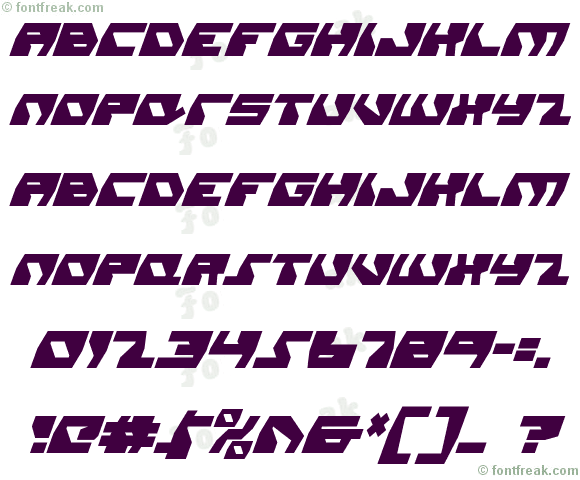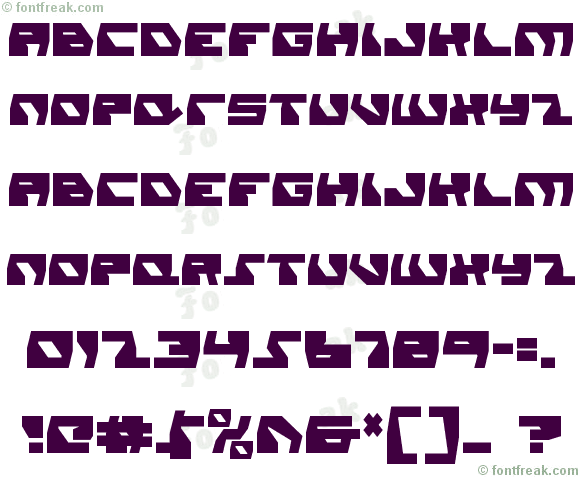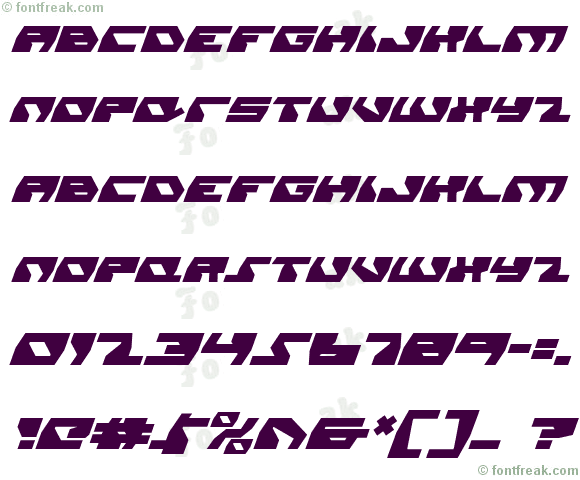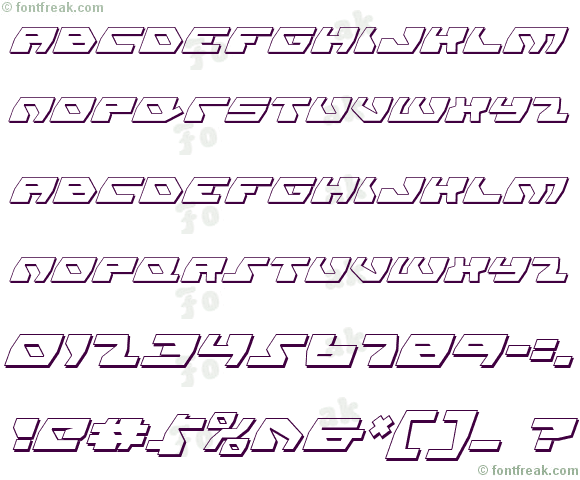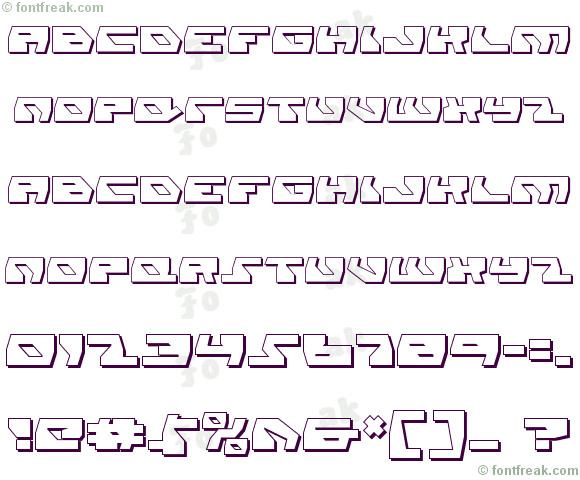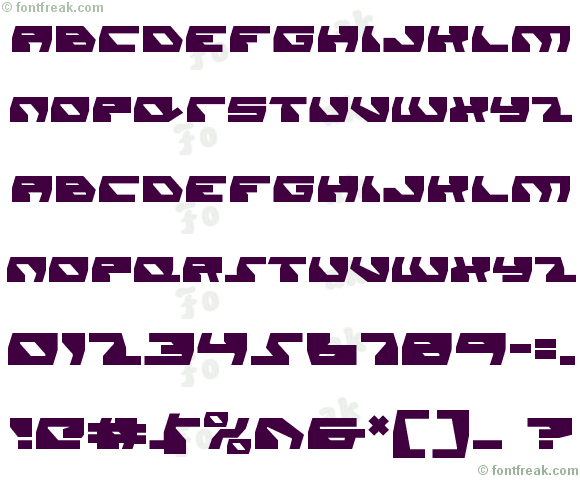
Daedalus Shadow
Daedalus Condensed Italic
Daedalus Shadow Italic
Daedalus Condensed
Daedalus
Daedalus Italic
Daedalus Shadow, designed by Daniel Zadorozny in 2008, is a striking display font that captures attention with its unique condensed italic style. This font falls into the decorative category, making it an excellent choice for projects that require a bold visual impact. Its strong geometric forms are complemented by a distinctive shadow effect, which adds depth and dimension to each character. The stroke weight is consistent, with a moderate contrast that enhances readability while still maintaining an artistic flair.
The visual characteristics of Daedalus Shadow are particularly captivating. The letters are thoughtfully spaced, allowing for seamless flow in text while the shadow elements create an intriguing interplay of light and dark. This makes the font not only eye-catching but also versatile enough for various applications. The design includes sharp angles and clean lines, contributing to its modern yet bold aesthetic.
The best use cases for Daedalus Shadow include movie posters, where its dramatic flair can evoke excitement and intrigue; video game graphics, where it can enhance the thematic elements; and promotional materials for events or products that aim to stand out in a crowded marketplace. Additionally, it’s suitable for restaurant menus that want to convey a contemporary vibe or branding for tech startups looking to make a memorable impression.